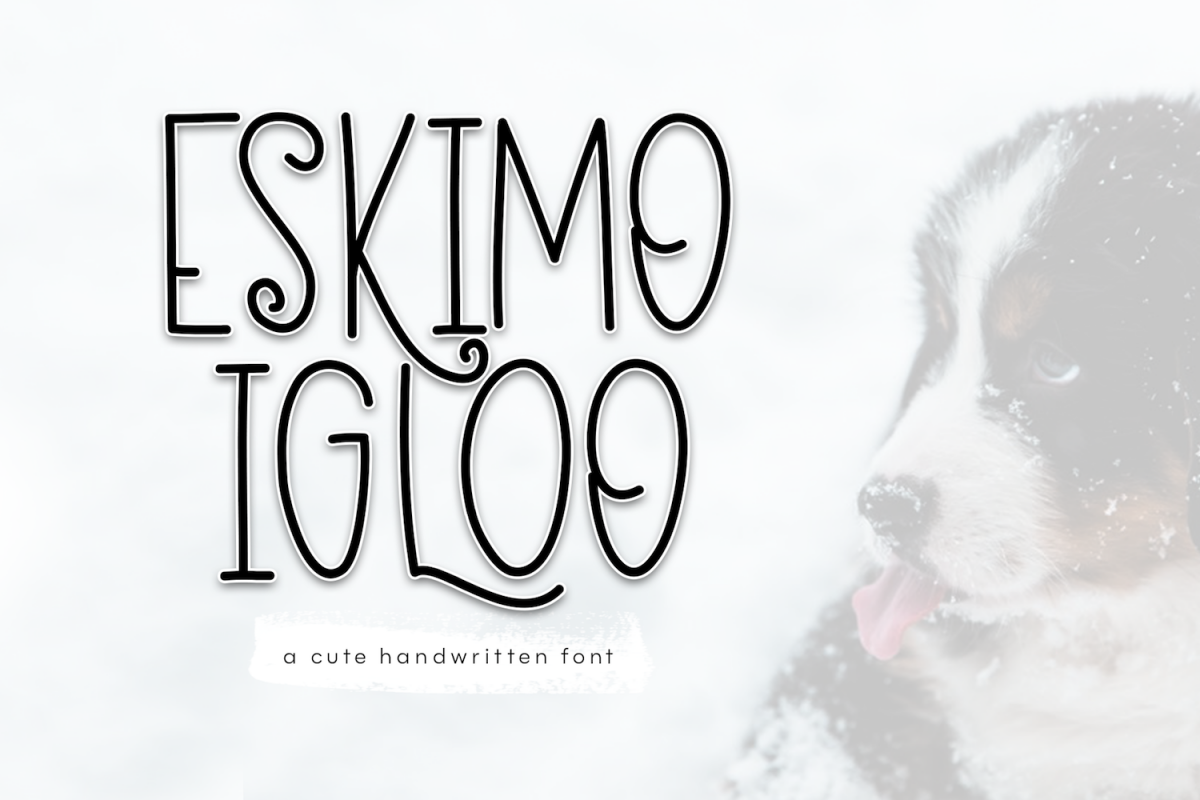
Eskimo Igloo - A Fun & Quirky Font
Eskimo Igloo is a fun and quirky font.
This font is perfect for quotes, headings, designs, logos, invitations and more!
This font *does* include accent characters.